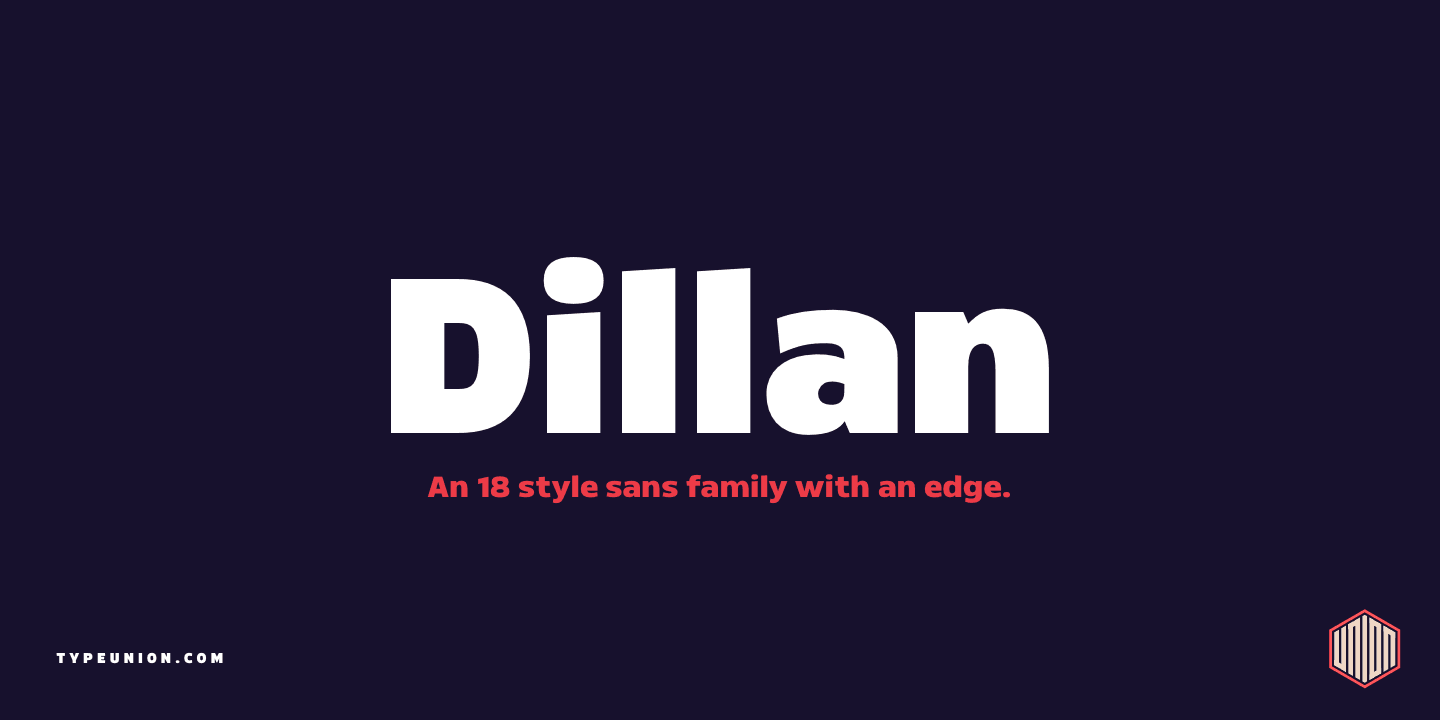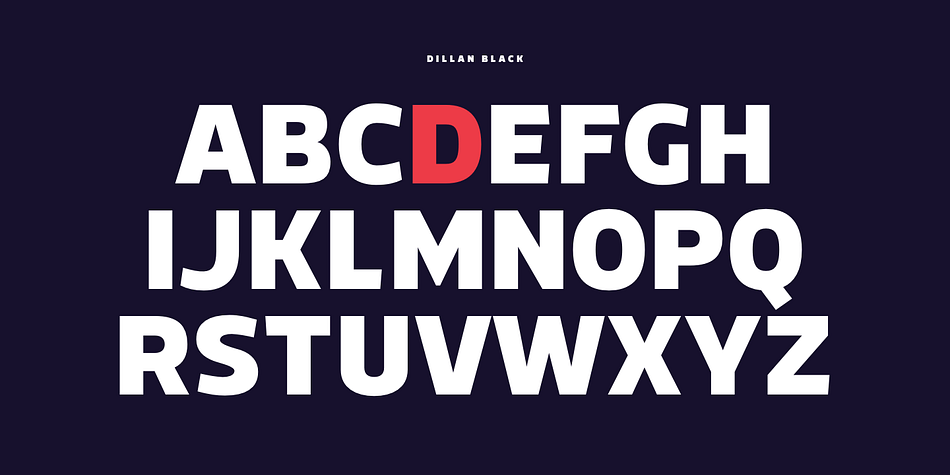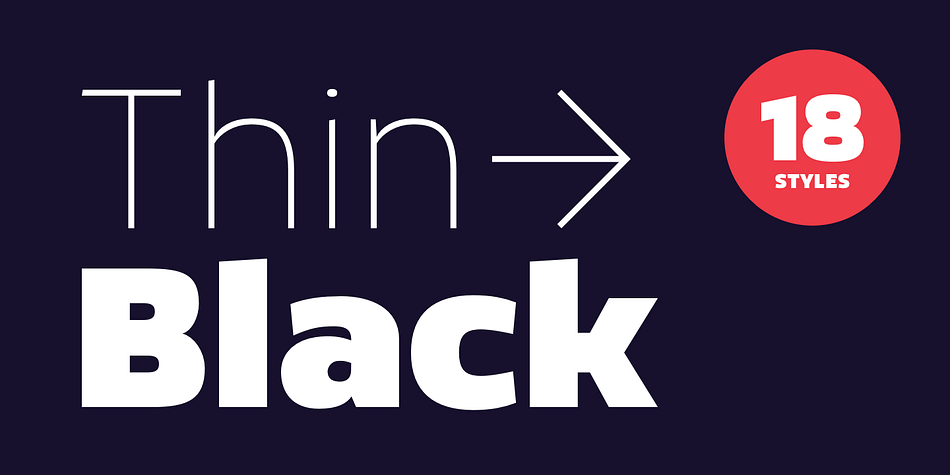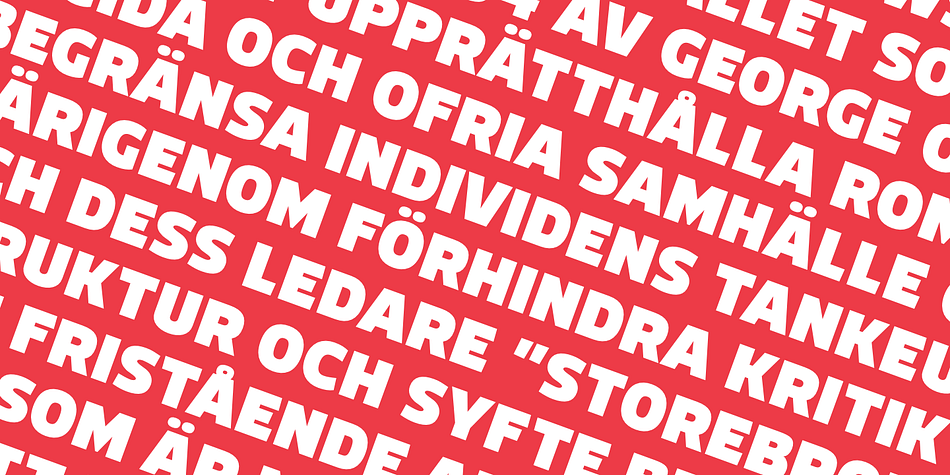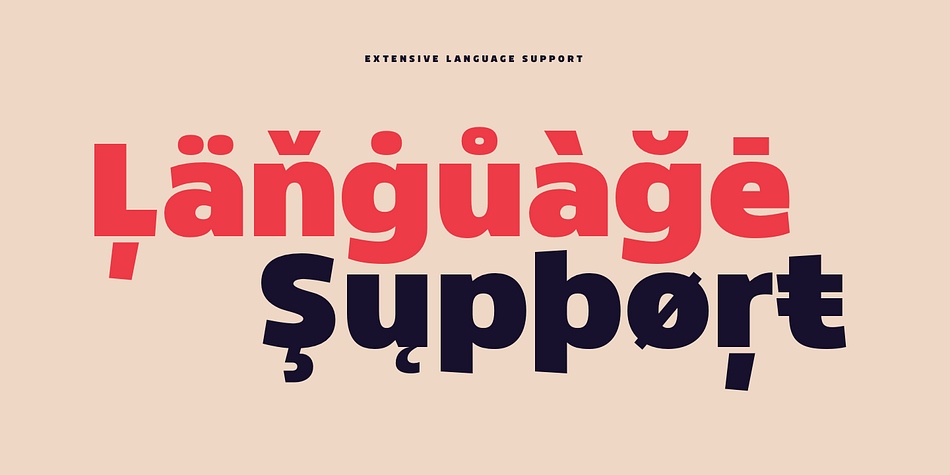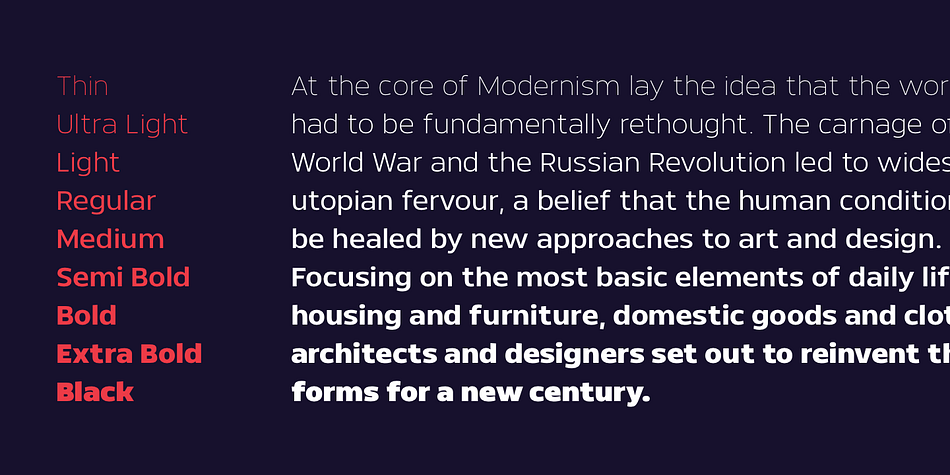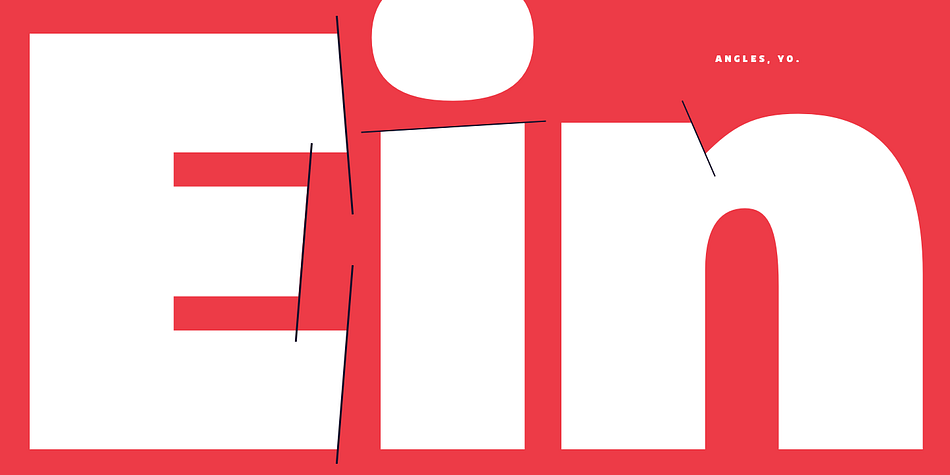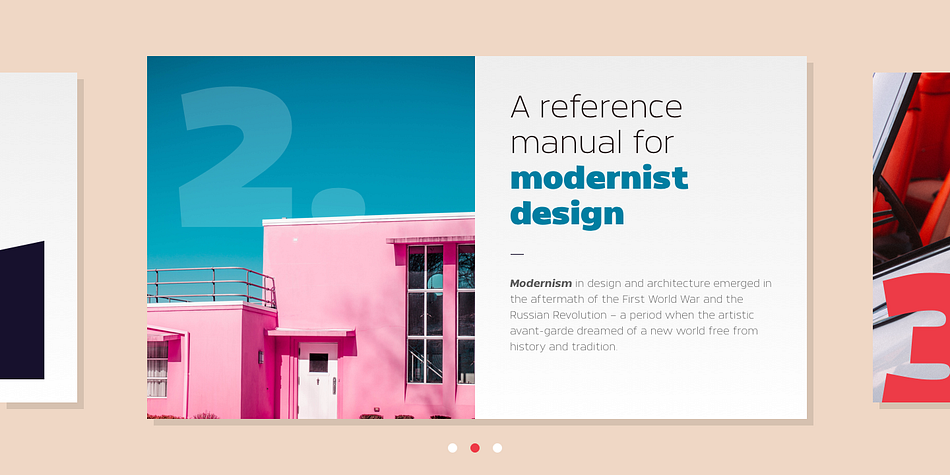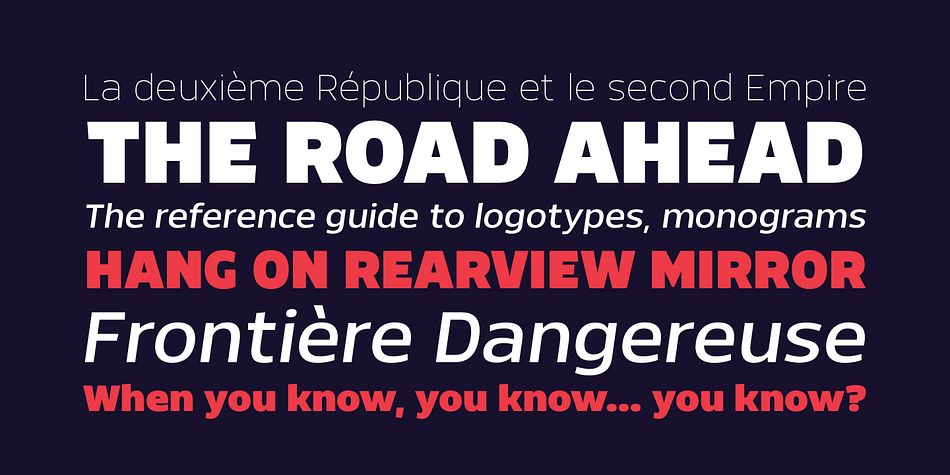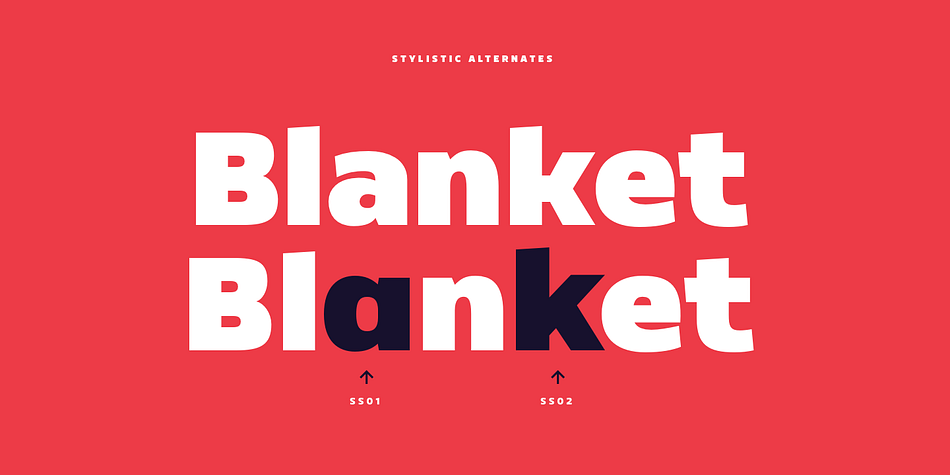
Designed by Dan Jones, Dillan is a sans serif font family. This typeface has eighteen styles and was published by TypeUnion.
Dillan is an 18 style sans family with an edge. Its angled ascenders add movement and a unique appearance, whilst its flatter terminal angles gives a more fluid connection to partnering letters. The angles give the font a contemporary feel and the higher x-height give it great readability at smaller sizes.
The font is made up of 9 weights and it’s matching italics and includes some nice features such as stylistic alternates, extensive European language support, case sensitive characters, ligatures and much more.
Dillan is perfect for many applications including digital treatments such as apps, websites and motion design, as well as branding, logos, advertising and editorial, and much much more.